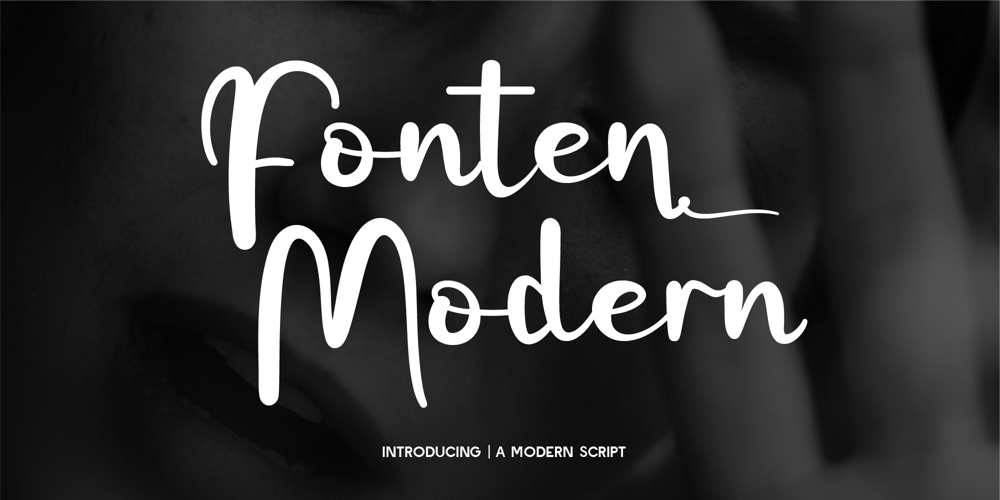
CF Fonten Modern Font Family was designed by Gilang Mei Nugraha, Frederik Aristaputra and published by Creatifont Studio. CF Fonten Modern contains 2 styles and family package options. Fonten Modern is a stylish and contemporary script font that blends bold strokes with fluid, elegant curves. Designed to bring a sense of confidence and sophistication, this typeface features smooth, flowing lines with a modern calligraphic touch. The combination of thick and thin strokes adds character and versatility, making it perfect for branding, product packaging, logos, website headers, social media posts, and editorial design.With its effortlessly chic aesthetic, Fonten Modern is ideal for luxury branding, fashion-related designs, beauty industry projects, and creative advertising. Whether you’re crafting elegant wedding invitations, bold magazine titles, or modern business logos, this font ensures a dynamic and eye-catching presence. Its balance of contemporary style and graceful script forms makes it a standout choice for projects requiring both impact and refinement.A SUMMARY OF WHAT’S INCLUDED:- Standard Character A-Z, a-z, 0-9, Punctuation & symbols- Regular and Italic- Works on PC & Mac- Simple installation- Accessible in Adobe Creative Suite (Ai, Ps, Id, etc.) even work on Microsoft Word.- PUA Encoded Characters – Fully accessible without additional design software.🌟If you come across any issues or notice anything we might have overlooked while using this product, please feel free to reach out to us. We greatly value your feedback as it helps us enhance and refine our products. Thank you!